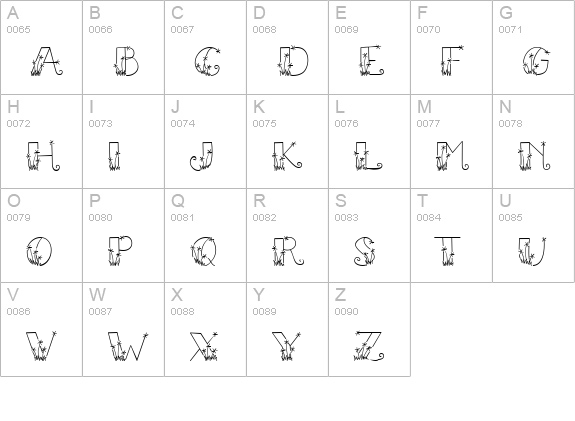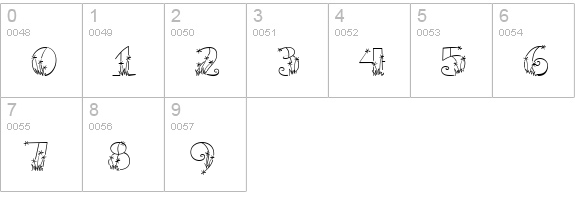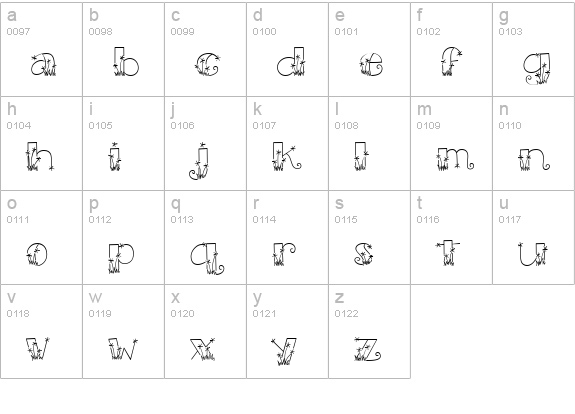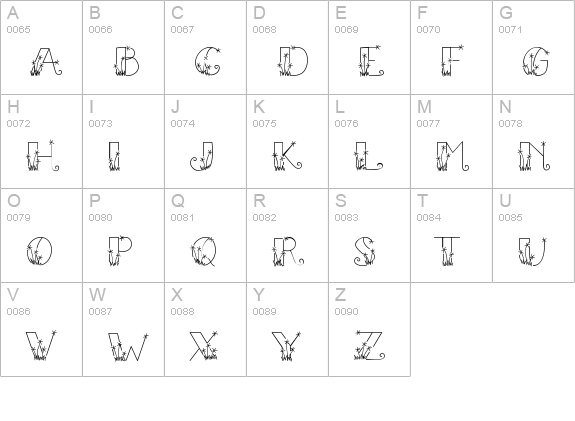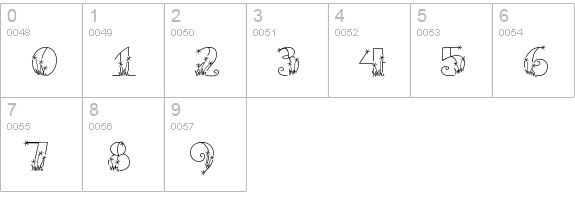
CK Flower Garden Font Details
Introducing the enchanting CK Flower Garden font, a whimsical and elegant typeface that exudes beauty and charm. Inspired by blooming flowers in a lush garden, this font features delicate floral elements intertwined with graceful letterforms, creating a unique and captivating design. CK Flower Garden is perfect for adding a touch of romance and sophistication to your projects, whether it be invitations, greeting cards, branding, or any other creative endeavor. Its versatile style makes it suitable for a wide range of applications, allowing you to effortlessly elevate your designs with a touch of floral flair. Best of all, CK Flower Garden is available for free download at FontsMarket.com, making it easily accessible for all your design needs. Embrace the beauty of nature and let CK Flower Garden bring a touch of whimsy and elegance to your next project.